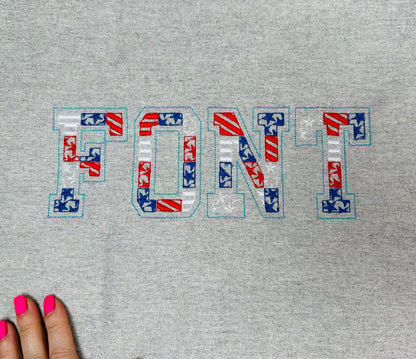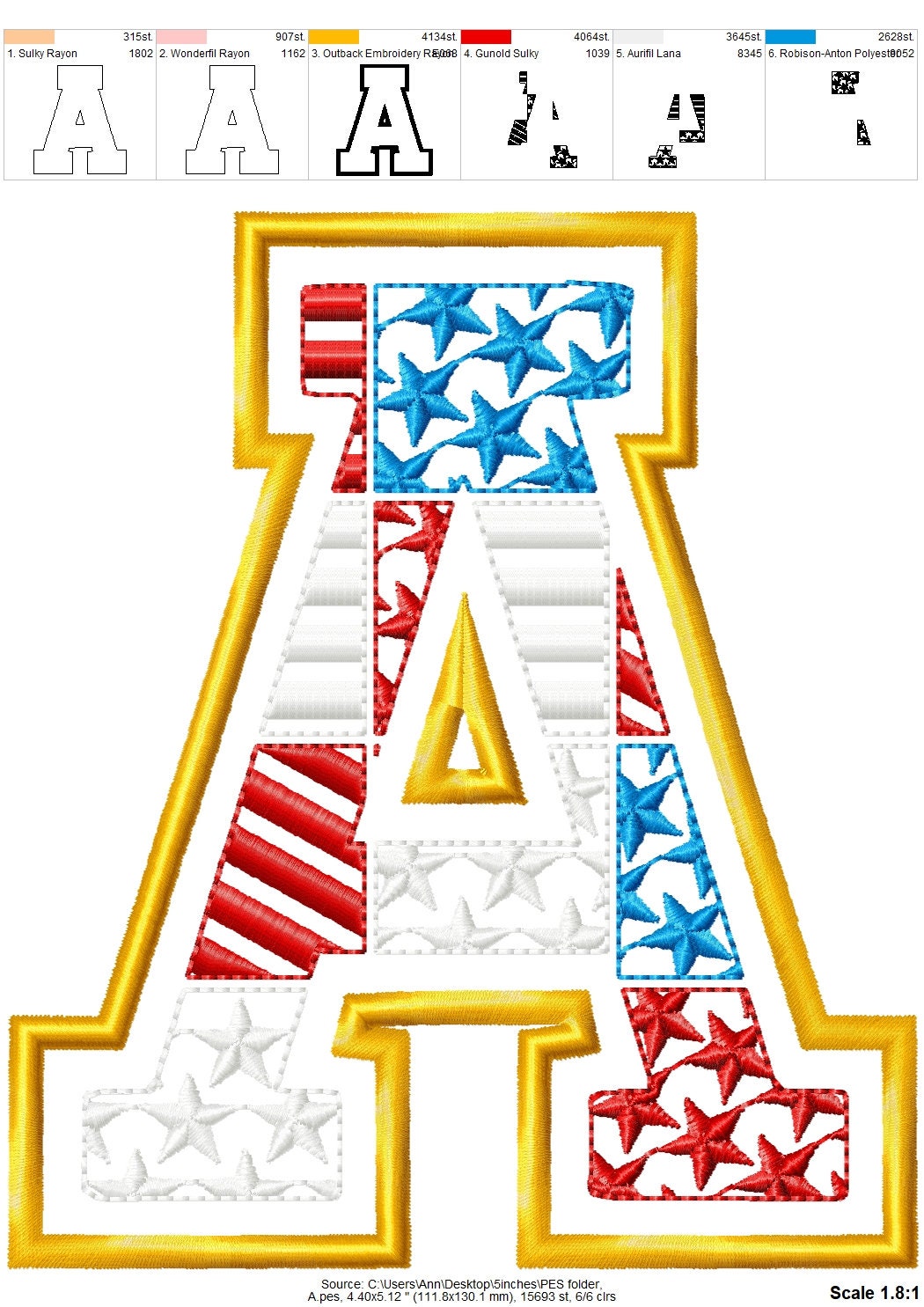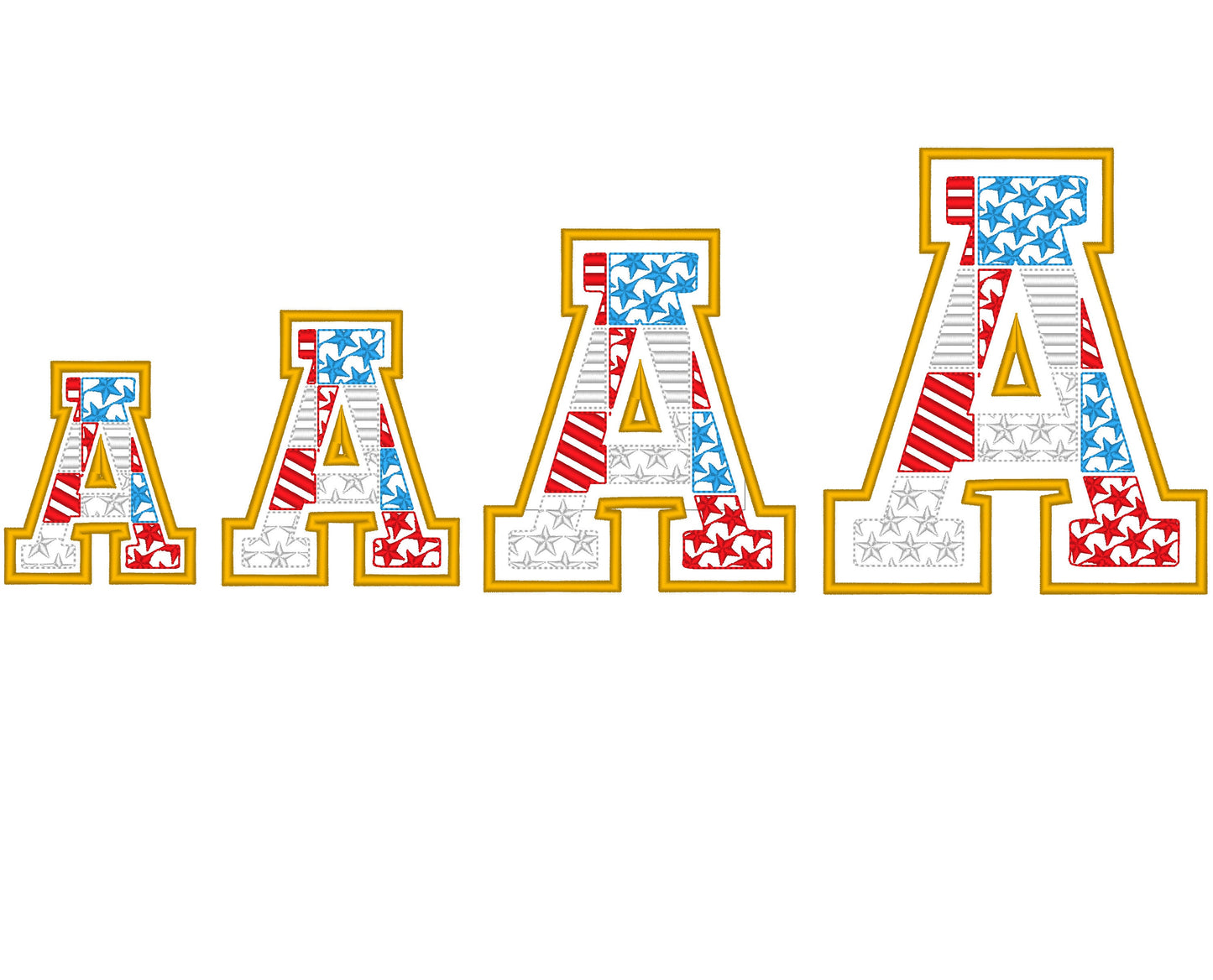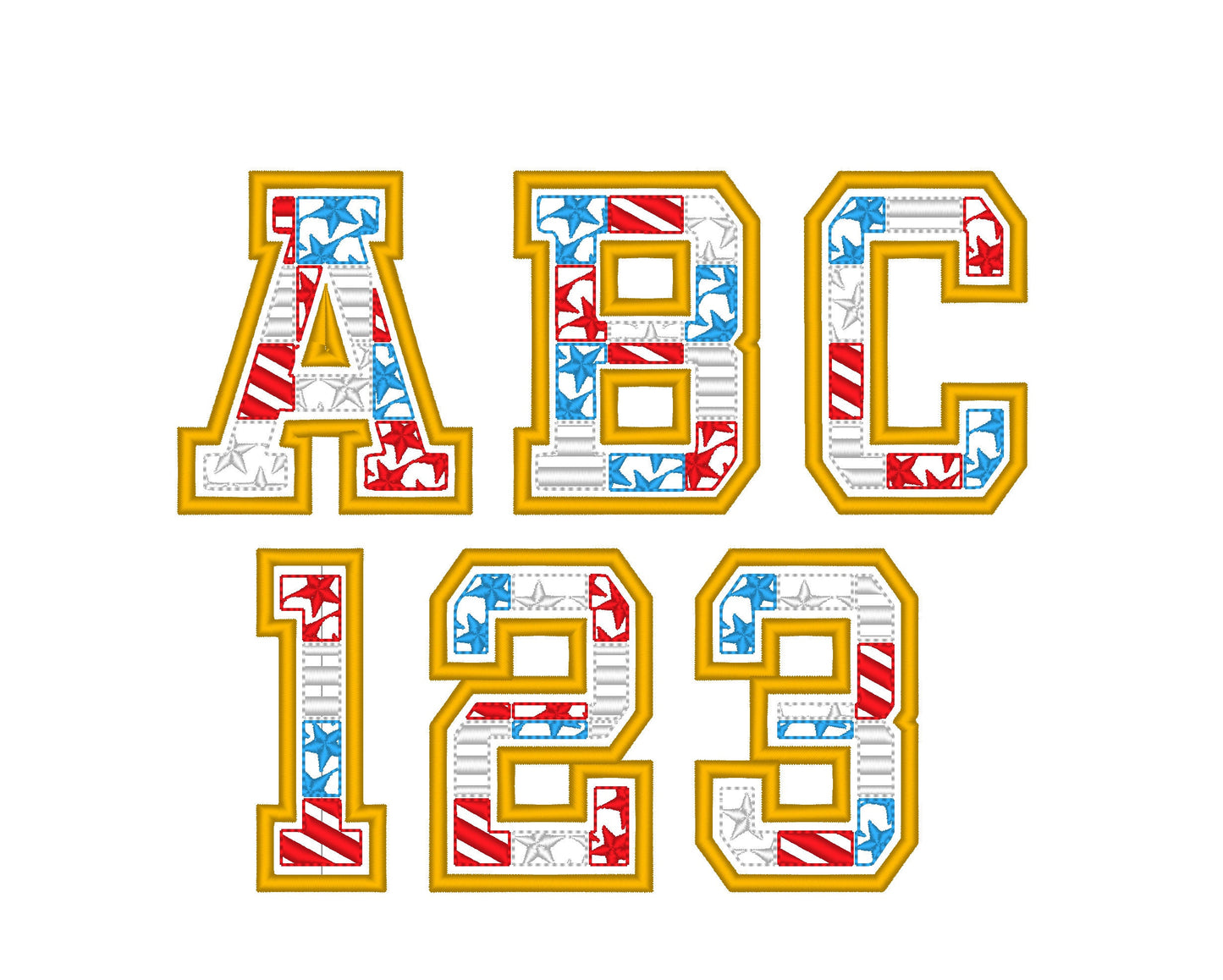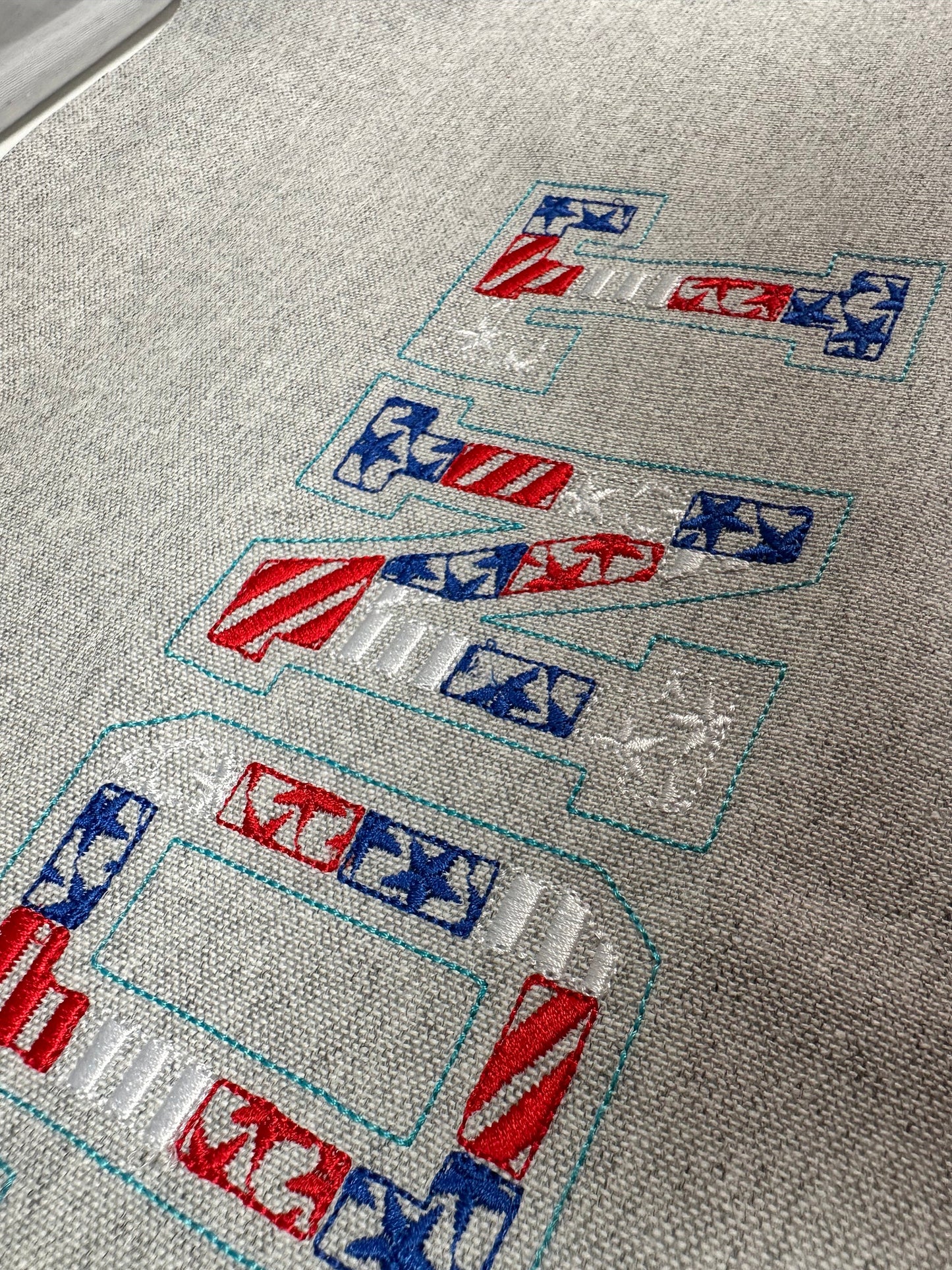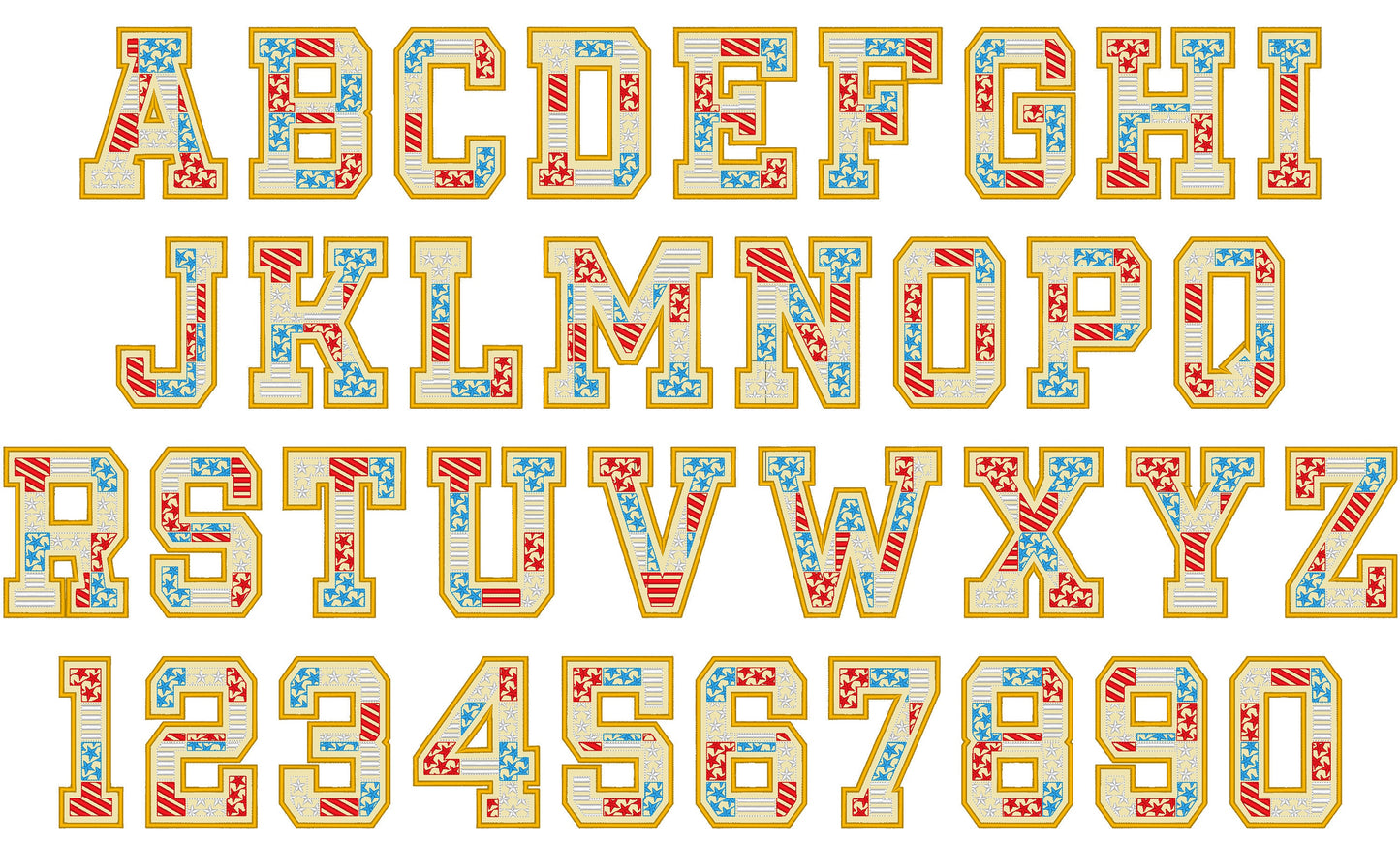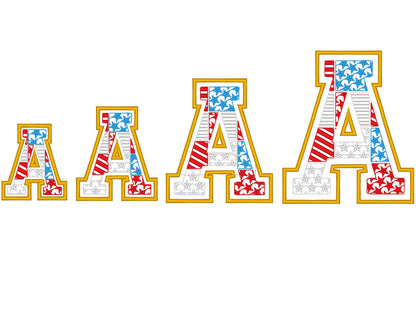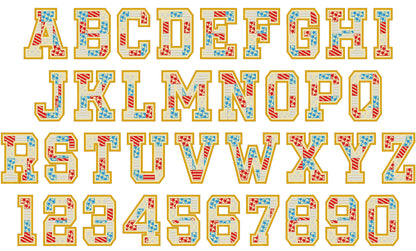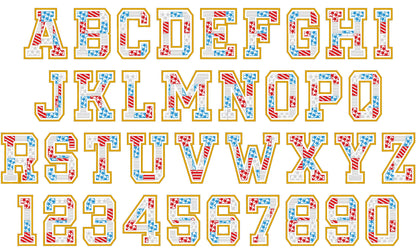
Or click to open the linkA patchwork patriotic applique font with stars and stripes, for Fourth of July names and numbers on shirts, pillows and flags.
Applique letters with a satin stitch outline and decorative stitches on top. Uppercase A to Z and numbers 0 to 9 in four sizes: 3, 4, 5 and 6 inches.